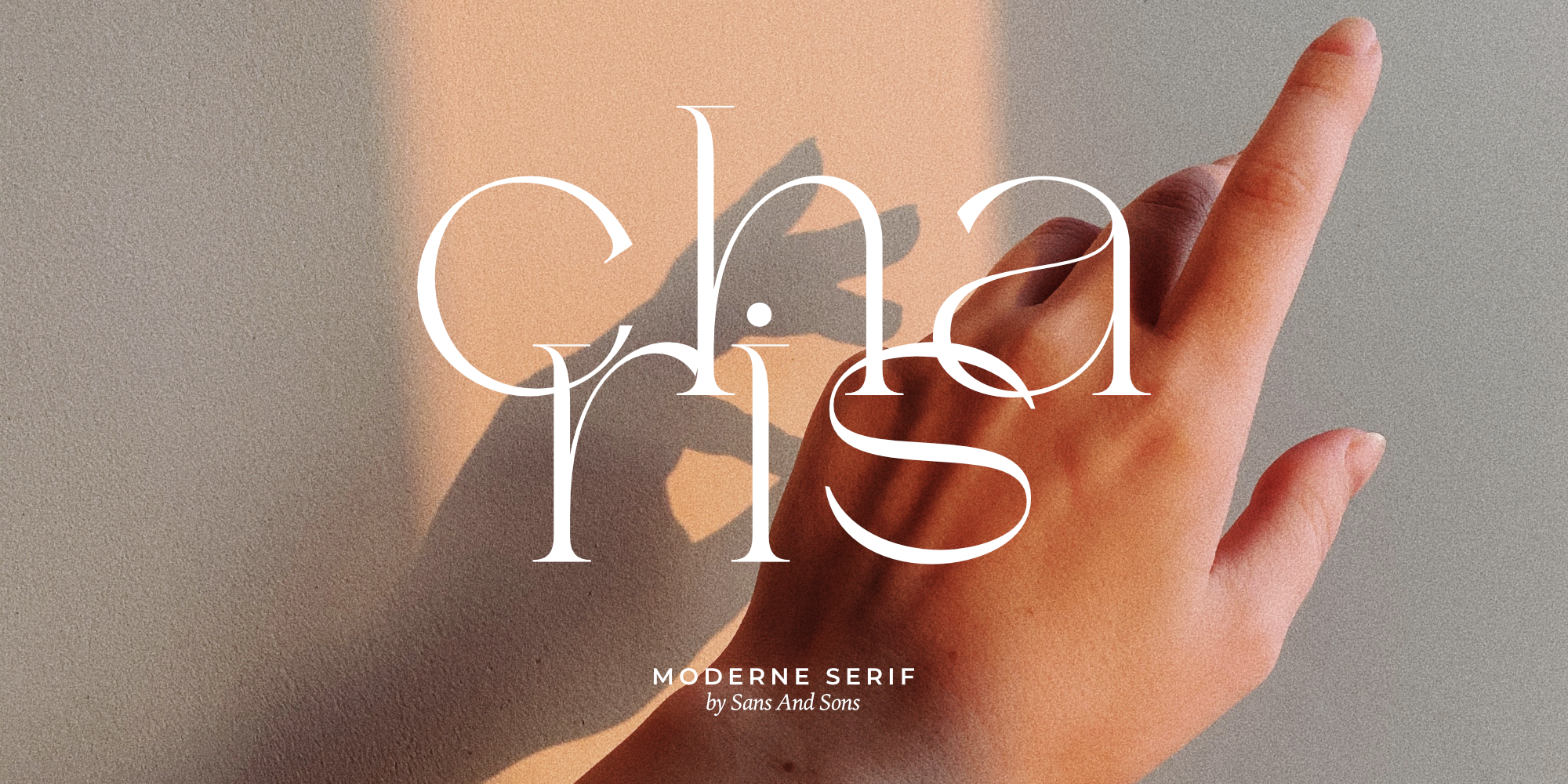
Charis Moderne Font is ideal for contemporary luxury brands, modern charismatic leadership, sophisticated personal coaching, elegant business presentations, graceful fashion campaigns, refined cultural organizations, distinguished professional services, upscale hospitality materials, charismatic speaker branding, and captivating applications that celebrate magnetic charm and modern sophistication.
What makes Charis Moderne Font truly exciting is its perfect embodiment of charismatic appeal and contemporary elegance that captures the magnetic presence and sophisticated charm that defines truly captivating modern communication. This exceptional typeface combines charismatic energy with refined sophistication, featuring graceful letterforms and magnetic character that convey both personal magnetism and professional distinction. The font's charismatic personality and modern elegance make it perfect for leaders and brands seeking to communicate influential presence, sophisticated charm, and the transformative power of authentic charisma that naturally draws people and creates meaningful connections.
The Charis Moderne Font family includes multiple weights and styles: Light, Regular, Medium, Bold, and Charismatic variations designed for maximum magnetic impact. Each family member maintains the distinctive captivating character while offering flexibility for diverse leadership applications and charismatic branding systems. The comprehensive character set supports sophisticated typography needs and charismatic design elements, making it suitable for international influential communications.
When you choose Charis Moderne Font Free Download, you're selecting a typography magnet that delivers authentic charismatic credibility and sophisticated charm to every influential project. This captivating typeface excels in applications where personal magnetism and sophisticated appeal are paramount, delivering exceptional charismatic presence while maintaining elegant authenticity. Whether you're designing leadership brands, charismatic campaigns, sophisticated materials, or influential marketing content, this font provides the magnetic sophistication and charismatic elegance that resonates with audiences who appreciate influential presence, sophisticated charm, and the powerful ability to inspire and captivate through authentic charisma and modern elegance.